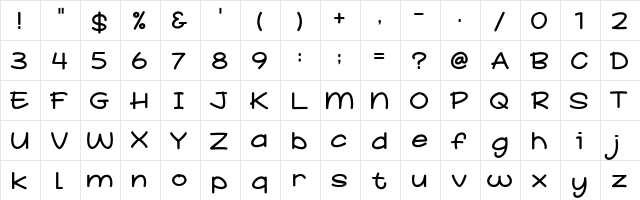
School Story Regular
| Foundry | Khurasan |
| Designer | Khurasan |
Design Context for School Story Typeface
School Story offers clean, dependable letterforms without strong stylistic allegiance, making it a practical choice for designers who need flexibility.